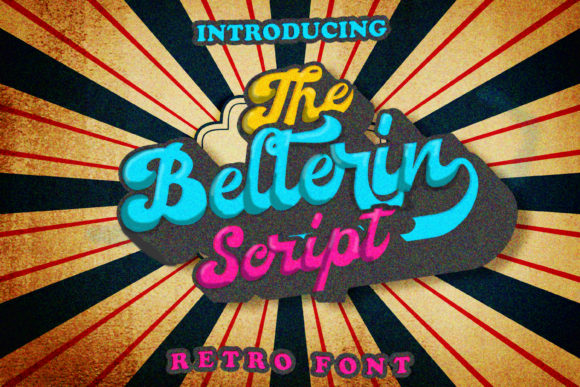
Bellerin Font
Journey back to the groovy 70s with Bellerin, the ultimate script font that oozes funk and boldness. Prepare to make a statement with every design, as Bellerin transforms your creative visions into remarkable standouts.
With its distinctive retro charm, Bellerin is a treasure trove of eye-catching characters, each a testament to the timeless appeal of the 1970s. Its playful curves and energetic strokes capture the essence of the era, evoking a sense of nostalgia and individuality.
Step into a world of endless creative possibilities with Bellerin. It's the perfect font for adding a touch of groovy flair to branding, posters, social media designs, and any visual project that calls for a dash of retro swagger. Unleash your imagination and make your designs dance to the rhythm of the 70s.
Bellerin is more than just a font; it's a gateway to a bygone era, where style and freedom reign supreme. It's the font that ignites creativity, sparks conversations, and leaves a lasting impression on your audience. So, embrace the funky vibes of the 70s and let Bellerin take your designs to groovy new heights.
Key features:
* Bold and captivating script style
* Authentic 1970s aesthetic
* Perfect for branding, posters, social media, and more